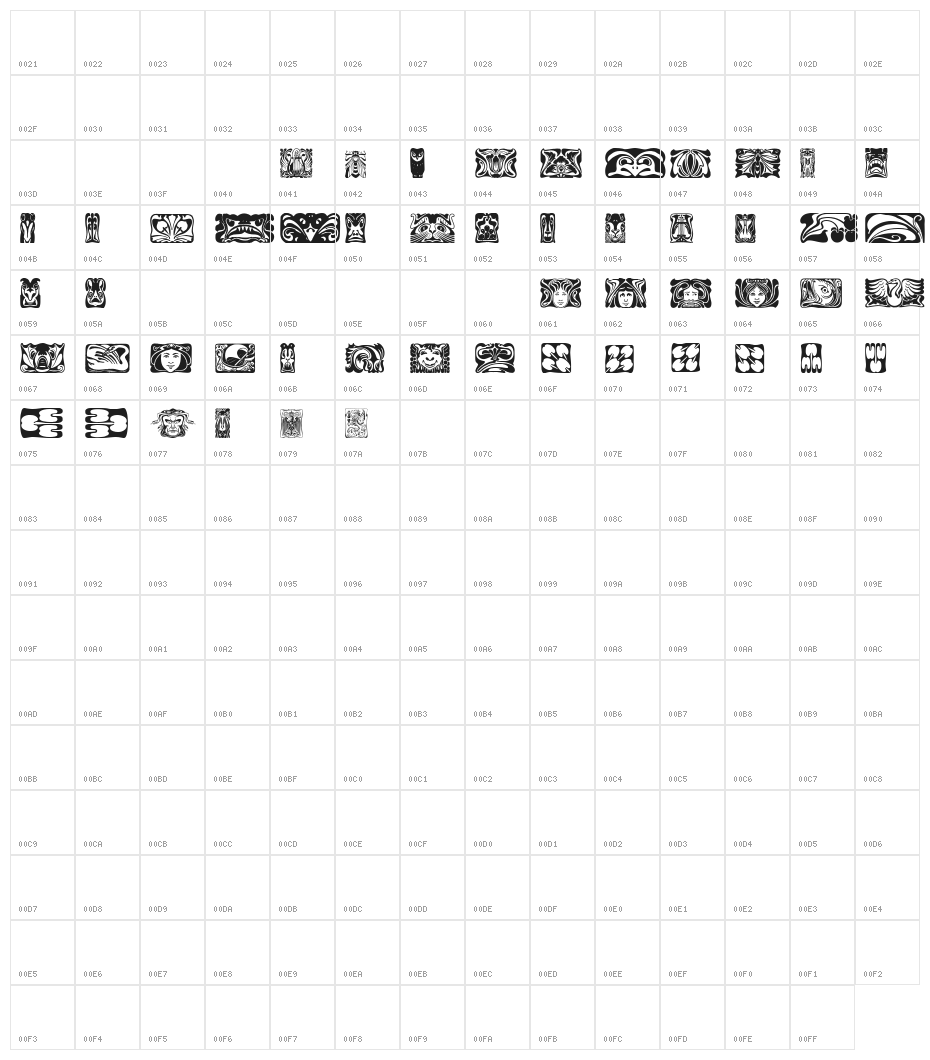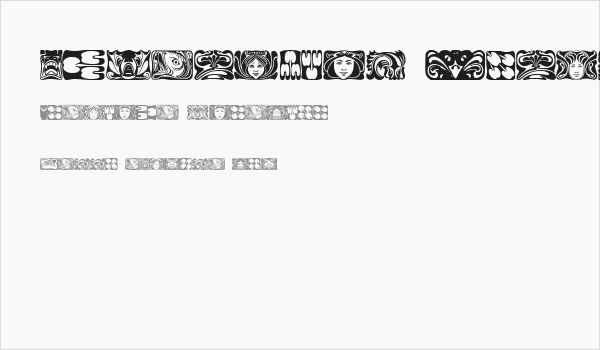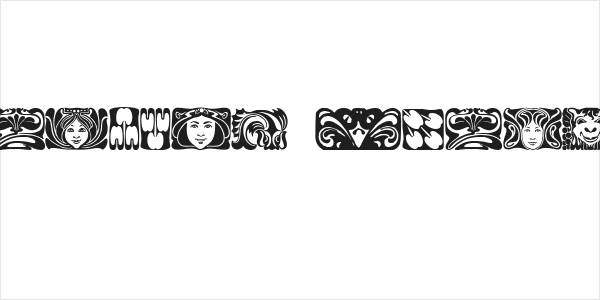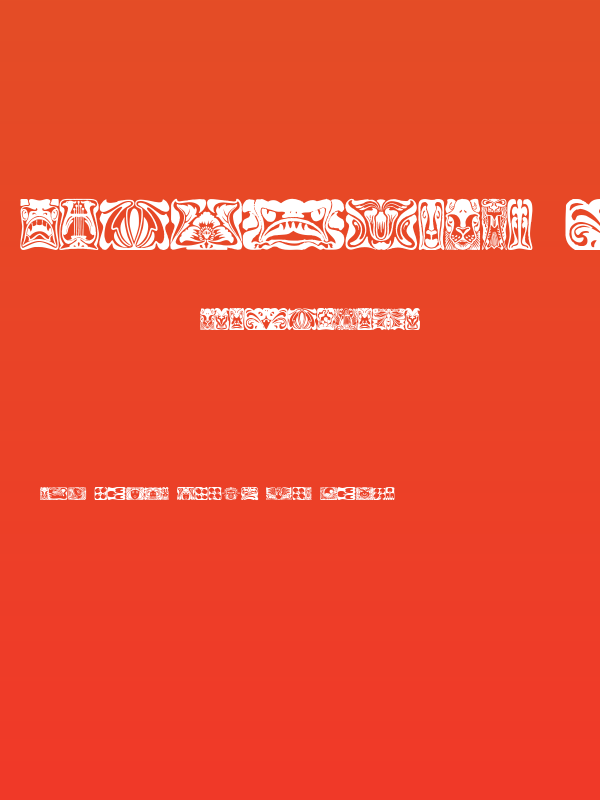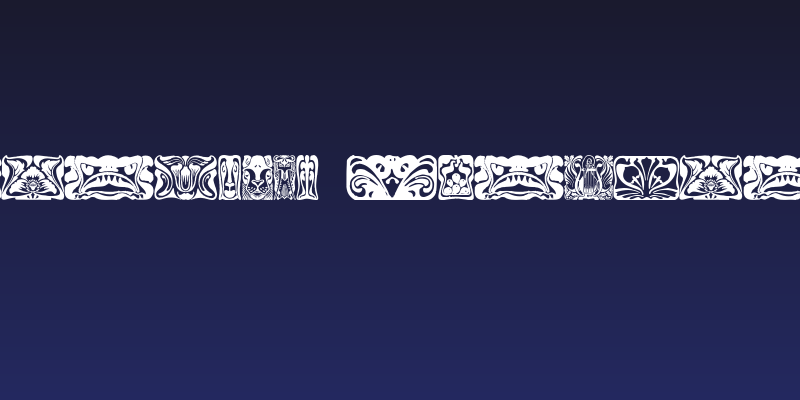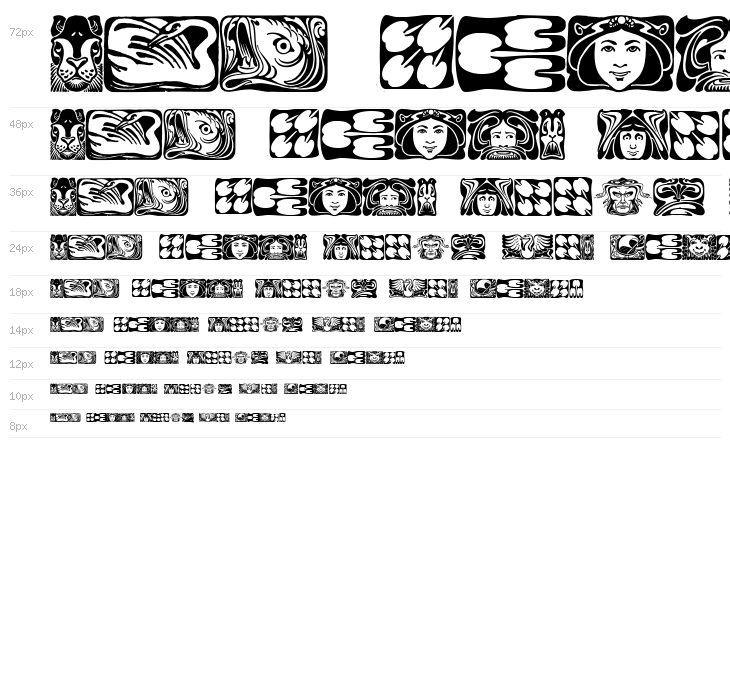
Jugendstil Ornamente Font
Jugendstil Ornamente Description
This is a decorative font inspired by the Jugendstil movement, characterized by its intricate and ornamental design. Each character is a unique piece of art, featuring elaborate patterns and motifs reminiscent of Art Nouveau. The font includes a variety of abstract shapes, floral elements, and stylized figures, creating a visually rich and complex appearance. The characters are highly detailed, with a strong emphasis on curves and flowing lines, embodying the organic and natural forms typical of the Jugendstil style. This font is not suitable for body text due to its decorative nature but can be used effectively in artistic and design projects where a touch of elegance and historical flair is desired.
| Use Case | Logos, Decorative headings, Artistic designs |
| Proposed Projects | Ideal for artistic projects, posters, invitations, and any design work requiring a decorative and historical touch. |